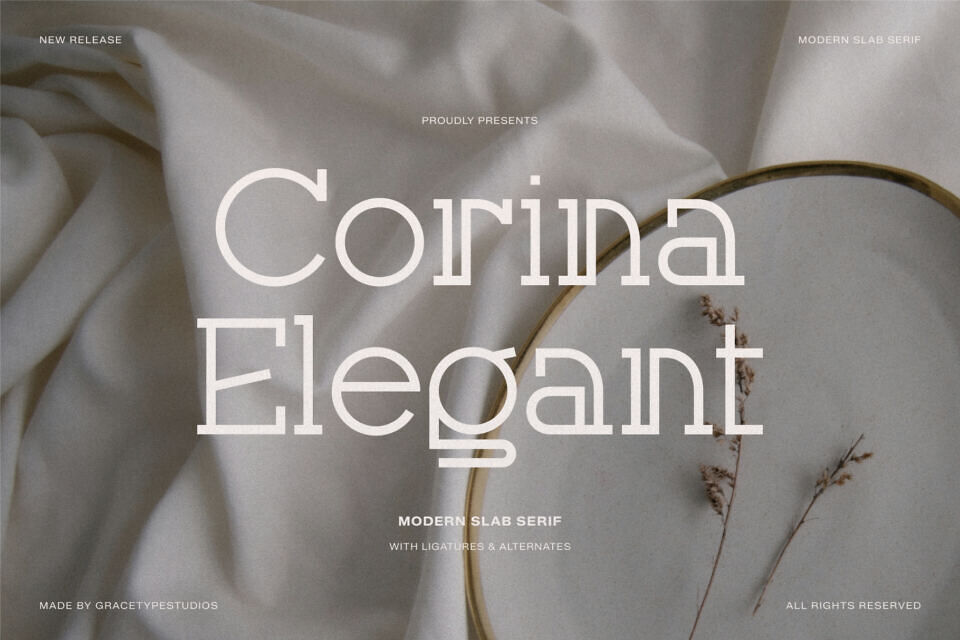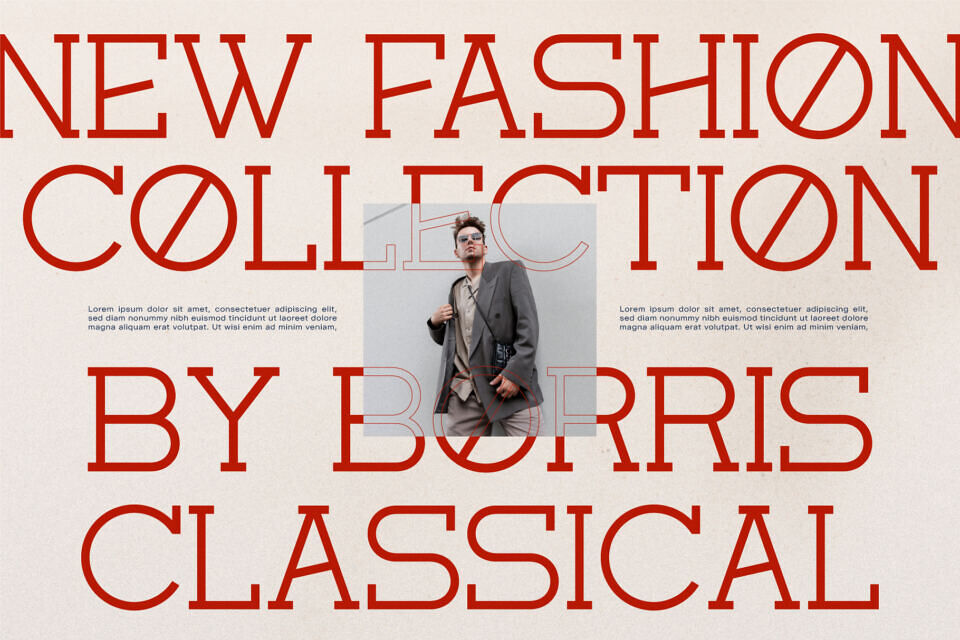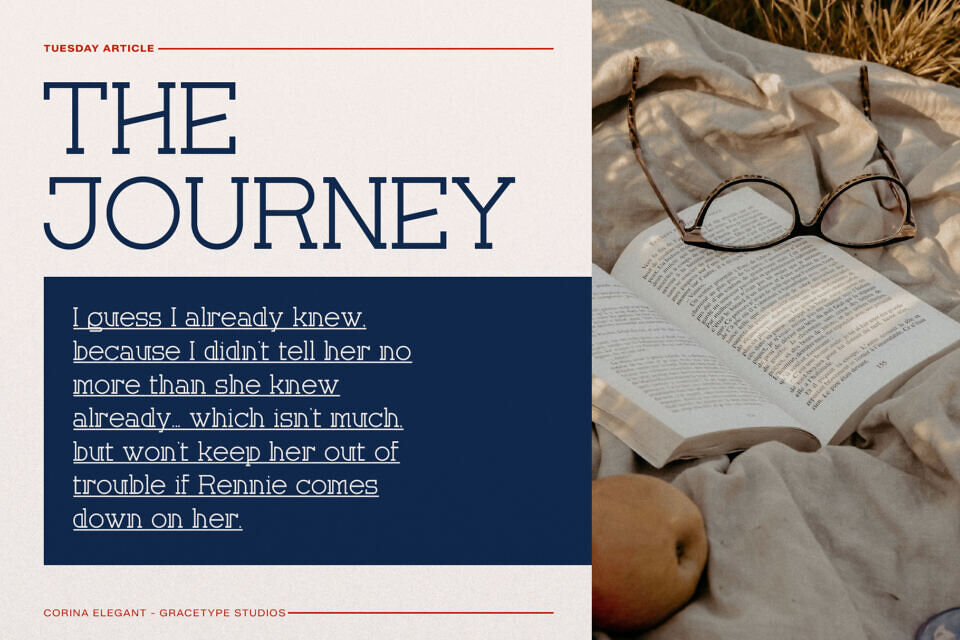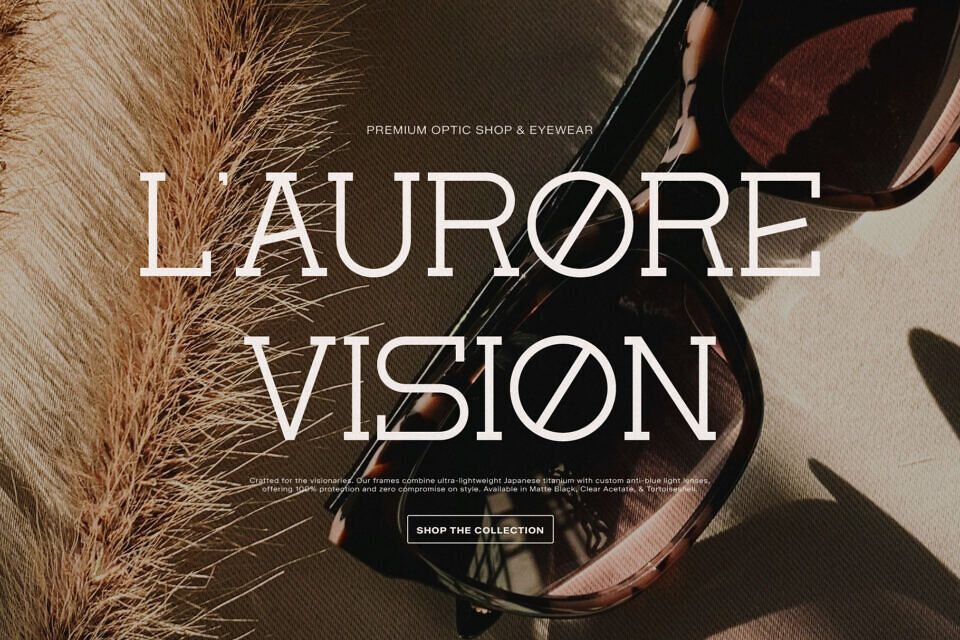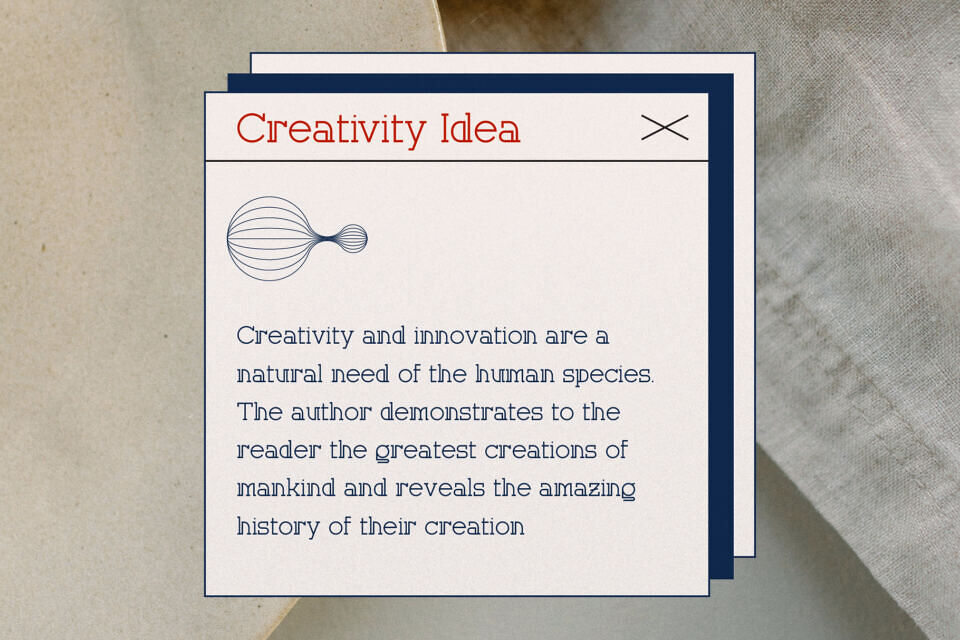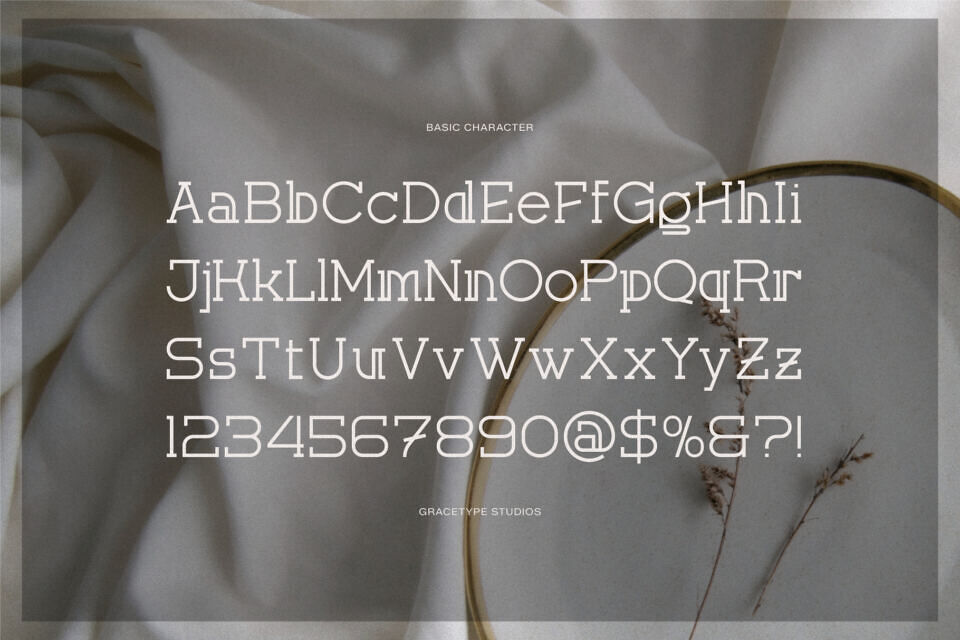
Introduce an wave of timeless sophistication, editorial architectural rhythm, and elevated luxury to your layout with Corina Elegant, a masterfully modern slab serif.
Corina Elegant is the premier choice for upscale boutique lookbooks, minimalist jewelry packaging, clean interior design branding, modern corporate identity systems, luxury skincare labels, and high-end digital editorial headlines.